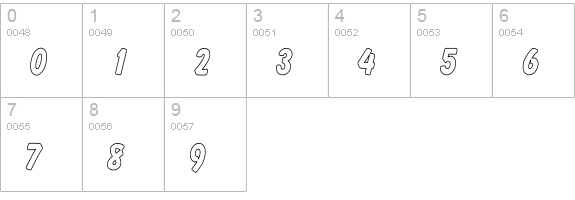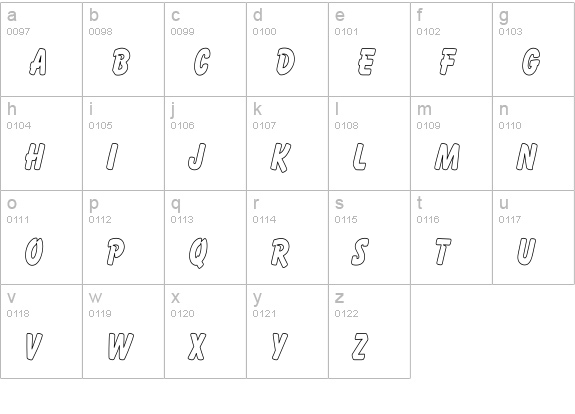
Cartoon Hollow Thin Font Details
Cartoon Hollow Thin is a delicate, low-contrast variant in the Cartoon typeface family \xE2\x80\x94 well suited to fashion editorial, minimal branding, and high-contrast display.
The Cartoon Hollow Thin font is a whimsical and playful typeface that is perfect for adding a touch of fun to your projects. With its charming and lighthearted design, this font is sure to bring a smile to anyone who sees it. The thin, delicate lines give the font a light and airy feel, making it a great choice for a variety of creative projects. Best of all, the Cartoon Hollow Thin font is available for free download at FontsMarket.com. So whether you're creating a birthday card, designing a children's book, or just looking to add a touch of whimsy to your work, this font is a fantastic choice. Download it today and let your creativity soar with the delightful Cartoon Hollow Thin font!